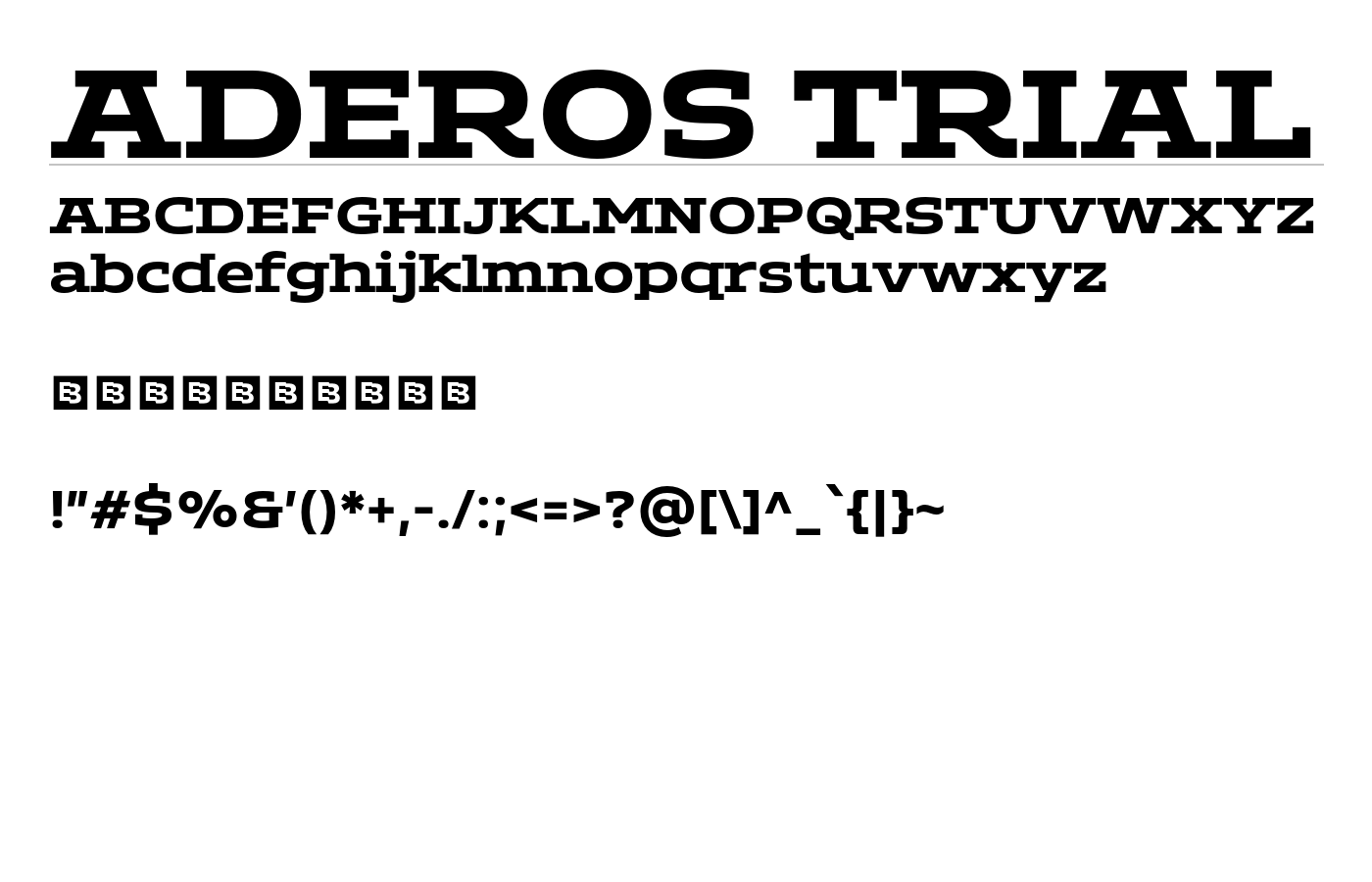
ADEROS TRIAL is a bold slab serif font characterized by its strong, blocky letterforms and thick, bracketed serifs that give it a sturdy and confident presence. With a relatively high x-height and moderate contrast between strokes, it conveys a vintage yet robust feel, making it ideal for headlines, logos, and branding that require attention and a classic touch. This font works best in contexts where impact and readability are essential, such as posters, editorial titles, and packaging design.
ADEROS TRIAL Font
About ADEROS TRIAL Font